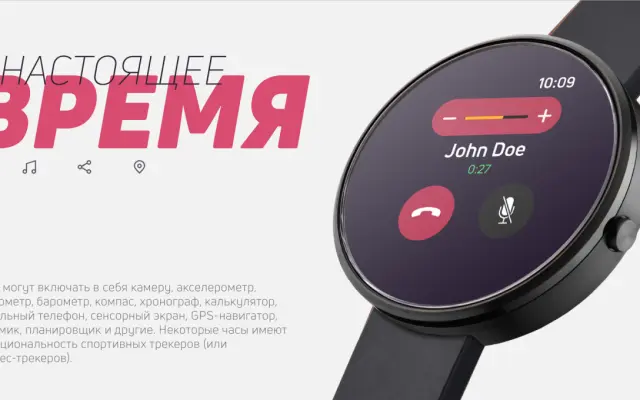
Uni Neue
Fontfabric · Plamen Motev, Svetoslav Simov · 2017
A modernised redesign of Fontfabric's Uni Sans, adding updated proportions, refined widths and subtly rounded corners across 14 styles.
A geometric sans-serif with softened corners, Uni Neue revisits the popular Uni Sans with improved spacing, weight distribution and overall refinement. Fourteen styles span Thin through Black with matching italics, and the family covers Extended Latin, Cyrillic and Greek, making it suitable for international projects. Manual hinting is included for reliable rendering on screen and in web contexts.
Uni Neue has a clear geometric construction with subtly rounded corners, placing it firmly in the geometric sans-serif tradition. Its proportions and refined details align it with modernised geometric grotesques suitable for both display and text use.